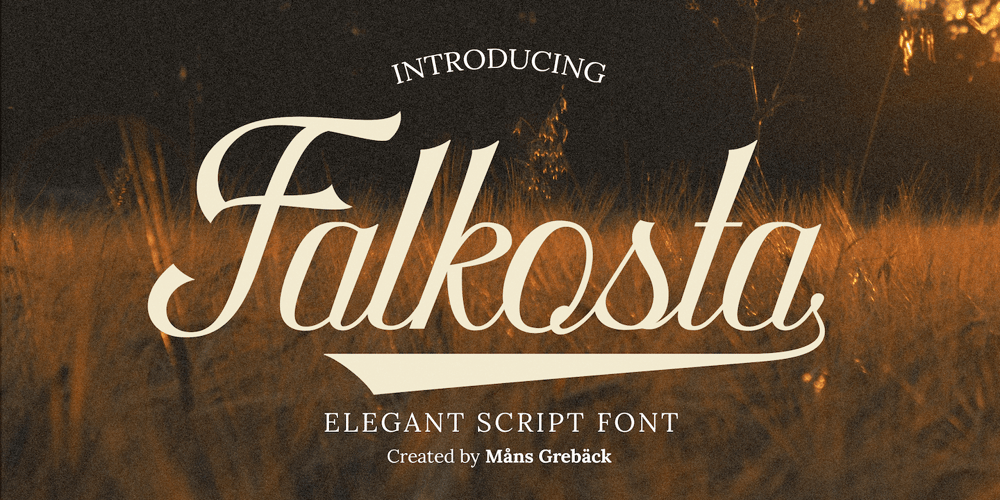
Falkosta Font Family was designed by Måns Grebäck and published by Mans Greback. Falkosta contains 4 styles and family package options. Falkosta is a decorative retro script typeface. Drawn and created by Mans Greback in 2022, this cursive lettering has a distinct style and a strong personality. Use it for a vintage logotype, a print for your business or as a headline for an article. Use underscore _ anywhere in a word to make a swash under the word.Example: Love_Write # or ¤ after any letter to make a swash version.Example: Me# & You¤Use multiple underscores for longer swashes.Example: Superman_______(Download required.)The font is built with advanced OpenType functionality and has a guaranteed top-notch quality, containing stylistic and contextual alternates, ligatures and more features; all to give you full control and customizability. It has extensive lingual support, covering all Latin-based languages, from Northern Europe to South Africa, from America to South-East Asia. It contains all characters and symbols you’ll ever need, including all punctuation and numbers.